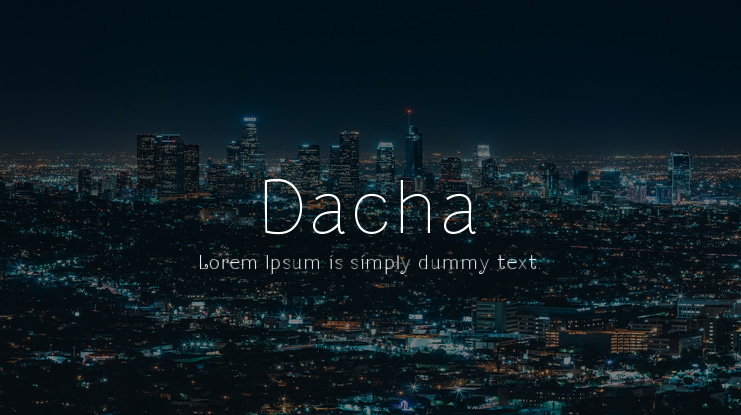
Dacha Font
Free OpenType Font Dacha! Dacha font is perfect for use in logos, branding and anything you need. OpenType features: 'calt', 'onum', 'salt', 'ss01'. You can use it for commercial or free use. Presented in OTF and WOFF formats.